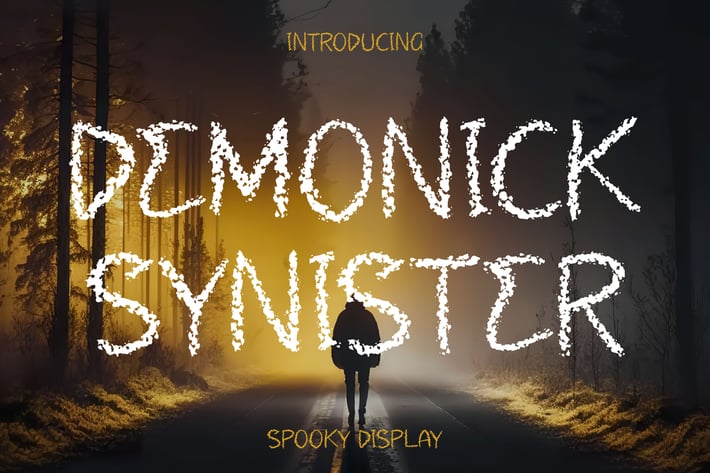
Demonick Synister Spooky Display Font
Demonick Synister is a spooky display font designed to bring an eerie and mysterious atmosphere to your projects. Its jagged strokes and rough edges create an unsettling yet playful look, perfect for Halloween themes, horror posters, or dark fantasy designs. With bold character and haunting charm, Demonick Synister instantly captures the essence of fear and fun.
Spooky display style
Uppercase, lowercase, numbers & punctuation
Unique textured letterforms
Halloween party invitations
Horror movie titles
Game or poster design
Haunted house flyers
Social media graphics
* Scary quote illustrations
Unleash your dark side with Demonick Synister — a spooky display font that makes every design scream with eerie energy!